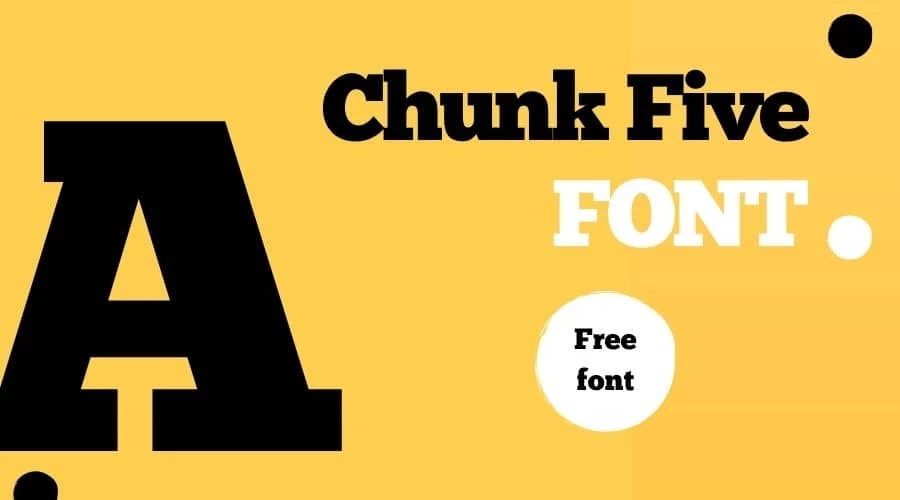
ChunkFive is an ultra-bold slab serif typeface designed by The League of Moveable Type (Meredith Mandel). Tyler Finck created a new textured style in 2014 and named it Chunk Five Print. ChunkFive is reminiscent of old American Western woodcuts, broadsides, and newspaper headlines.
This font style is appropriate for significant making methods. You can use this superior font for different purposes. Such as developing a brand logo, a poster, or a cover layout. It’s a heading font.